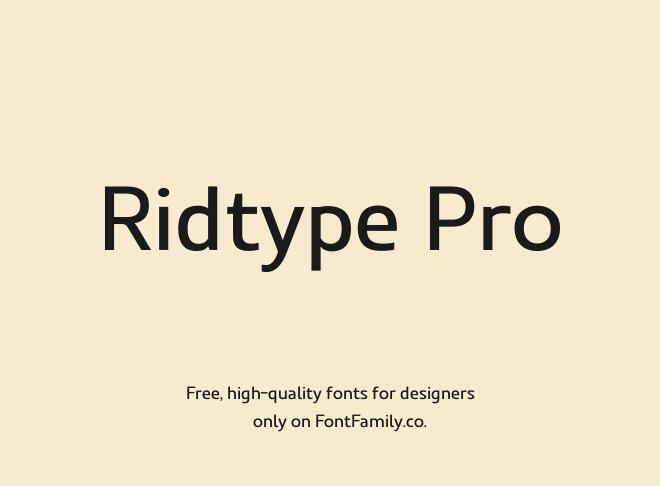
Ridtype Pro Font
Ridtype Pro Font is a modern, geometric, display typeface from the creative minds at Ridtype Foundry. Released in 2021, it stands out with its clean lines, balanced form, and distinctive character. The font is a perfect blend of elegance and functionality, making it a great choice for branding, logo design, editorial design, and more. Its geometric structure gives it a modern, contemporary feel, while still maintaining a certain level of classic sophistication. Compared to other fonts, Ridtype Pro offers a unique combination of style and readability, making it a versatile addition to any designer's toolkit. This font is a professional-grade typeface that's worth the investment, offering a broad range of design applications and enhancing any project it's applied to.